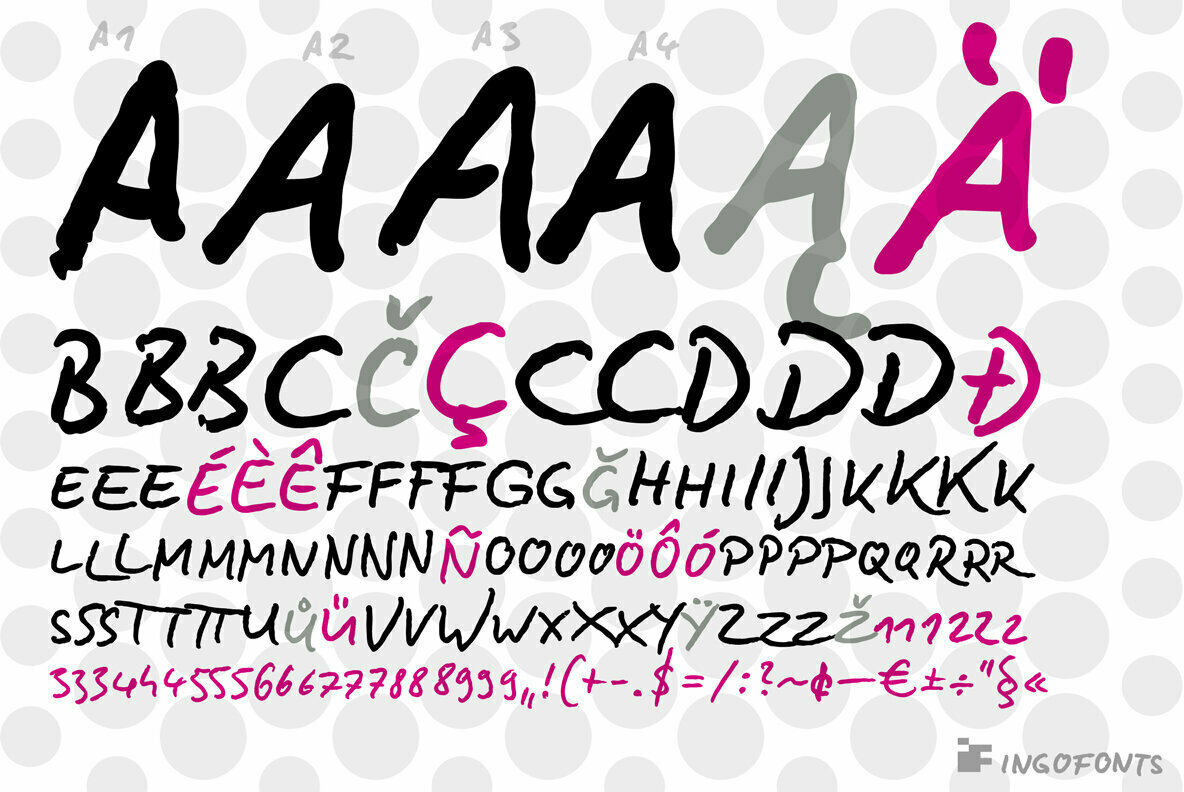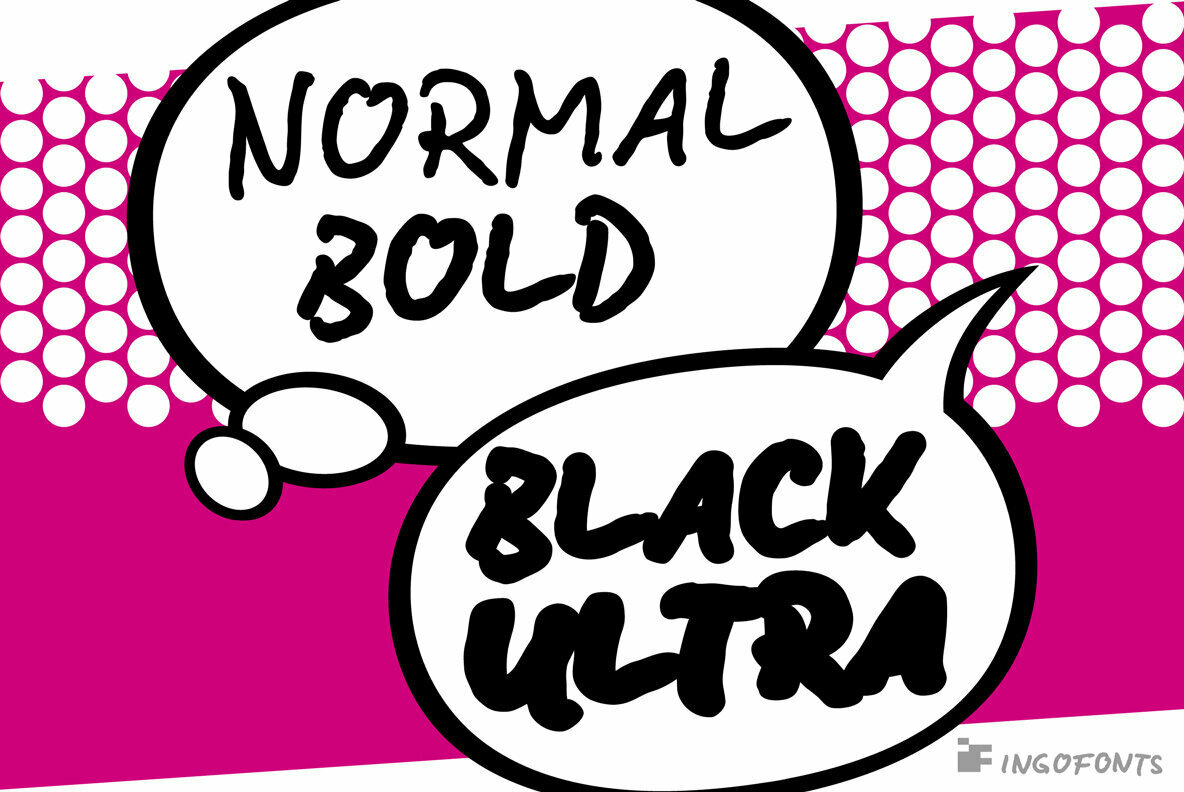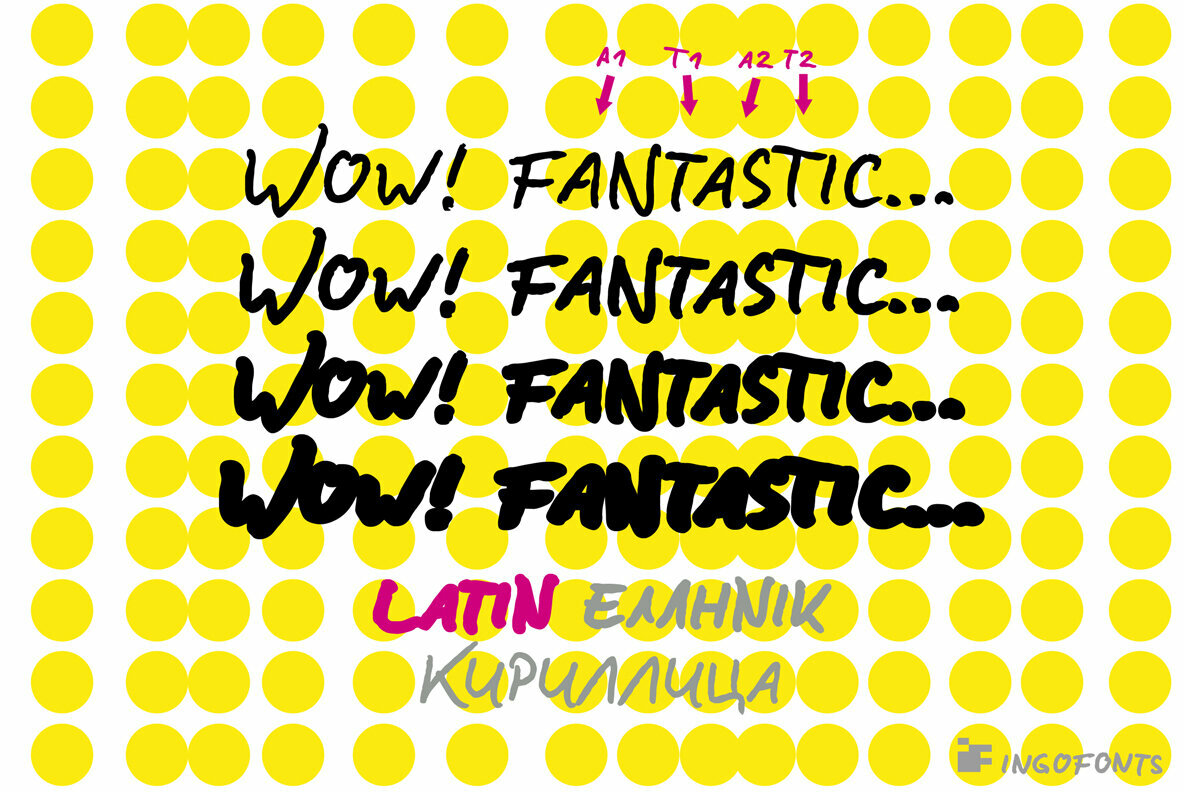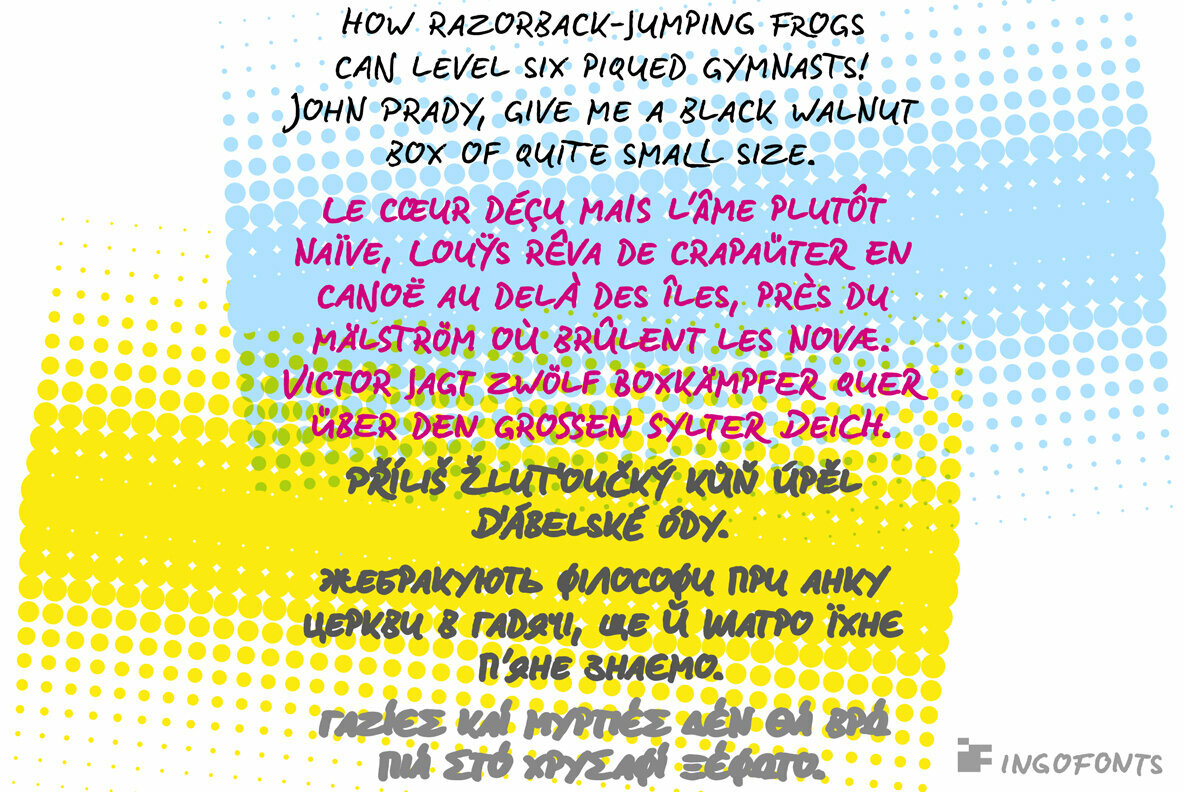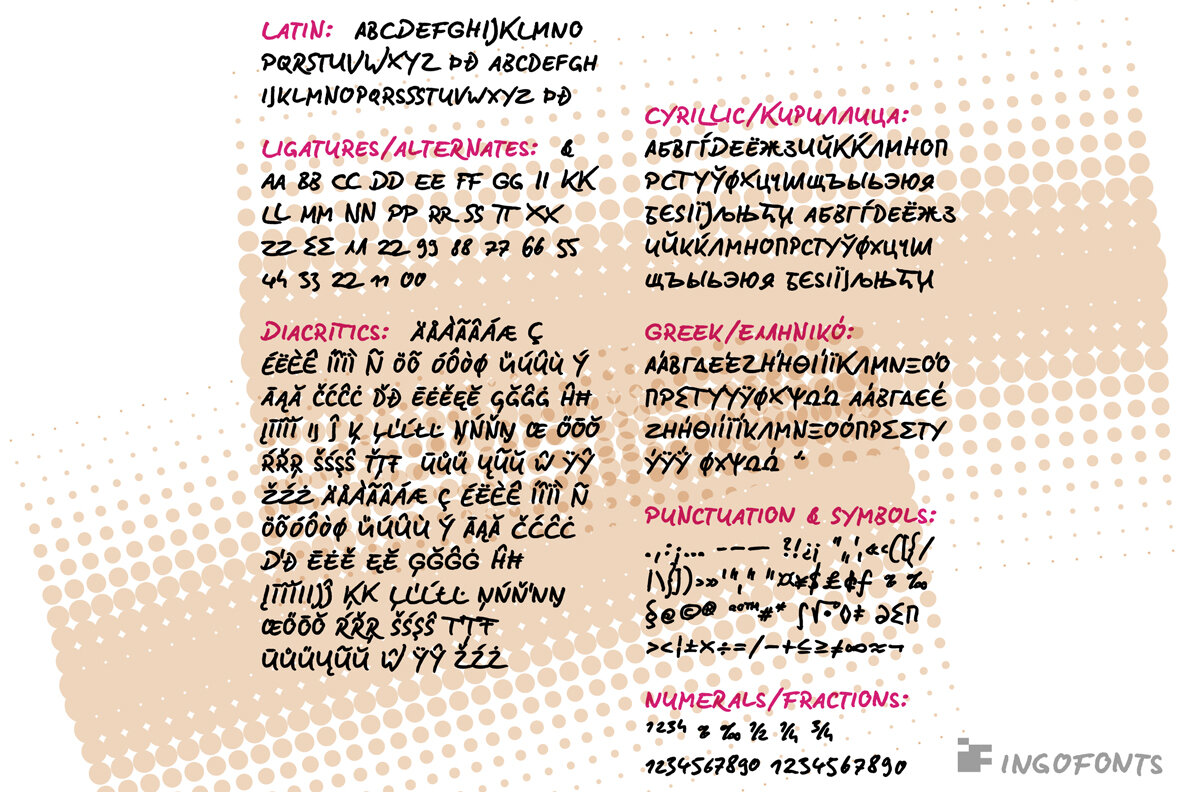
BD Lettering Pro Font
The Comic-Script by ingoFonts.
The BD Lettering is a computer font, but closely resembles genuine handwriting.
In the past cartoons used to be lettered by hand. Hardly anyone does this today. The reason is, because hardly anyone has nice handwriting these days, so there are practical advantages in having a special font. However the font should still look like it’s been written by hand. Well, most script fonts don’t meet this requirement.
The model for the BD Lettering is my personal handwriting, as can be seen on the example of the Biró Script, which is also an ingoFont. The habit of capitalization comes from the Romanic and Anglo-Saxon countries. The characters of the BD Lettering are based on the Biró Script. Depending on the purpose they are designed in three significantly thicker line widths.
In order for the typeface to actually look handwritten, it needs to have clearly visible irregularities. These are not found only in the shapes of the individual letters. Even though BD Lettering is all in capital letters, the characters of uppercase and lowercase letters are clearly different. Additionally, many alternative shapes are used, which are automatically applied when the OpenType “Ligatures” feature is activated. Thus, there are no identical double letters or numerals, and many character combinations are defined as ligatures with alternative forms.
By the way—the name of this font is a tribute to the Belgian and French comics, which are referred to there as “bande dessinée”, in short “bédé” or even the abbreviation BD.